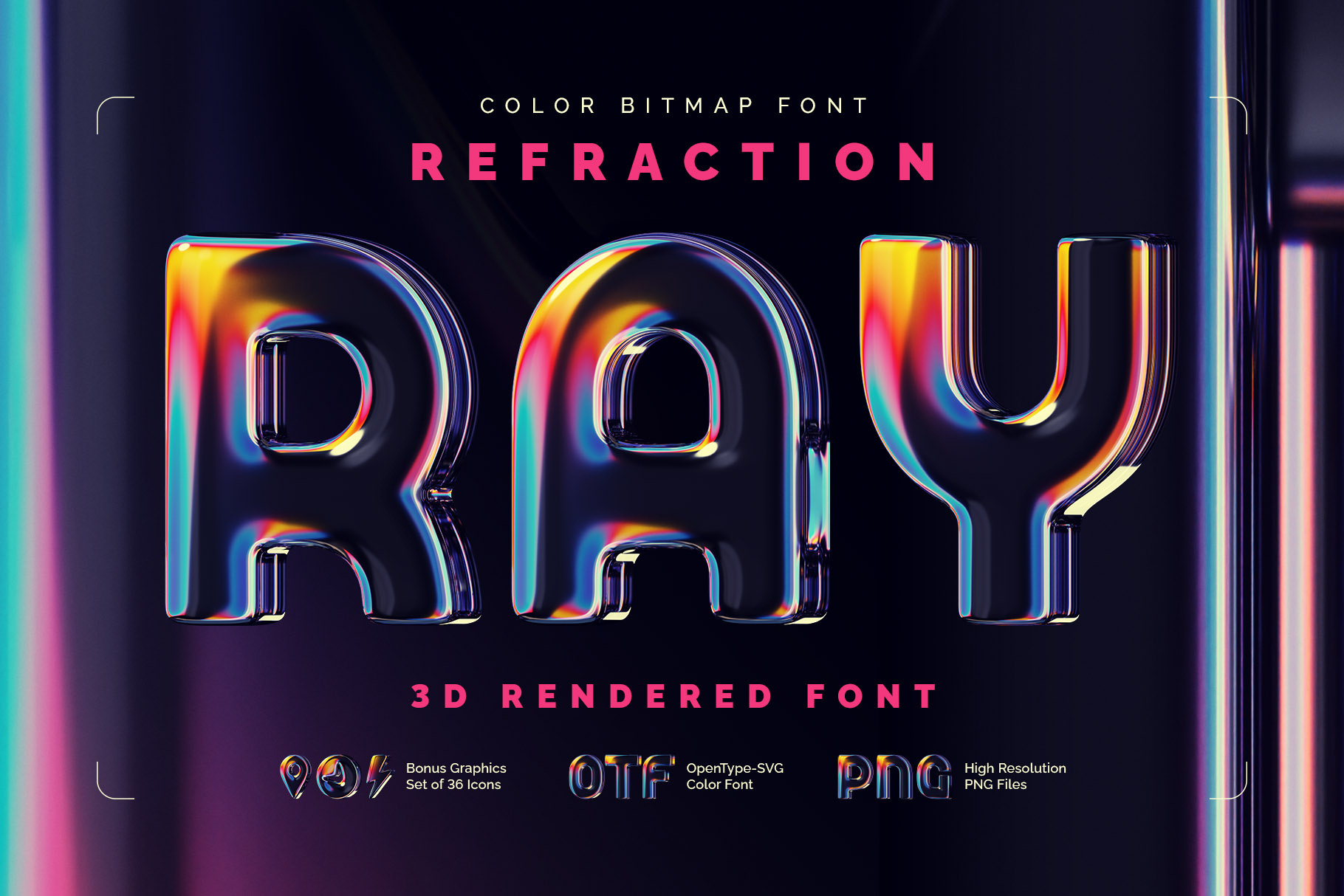
Refraction Ray - Color Bitmap Font
Introducing Refraction Ray, a colorful, creative font set. This 3D font has smooth, rounded letters with a colorful abstract glass texture that reflects light in subtle ways.